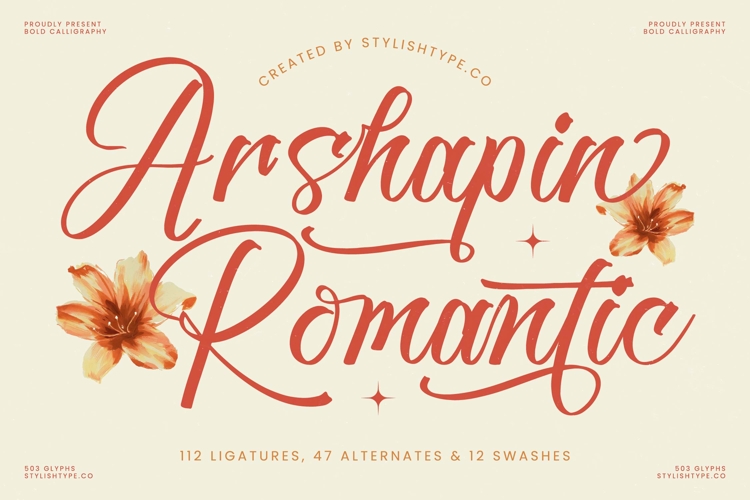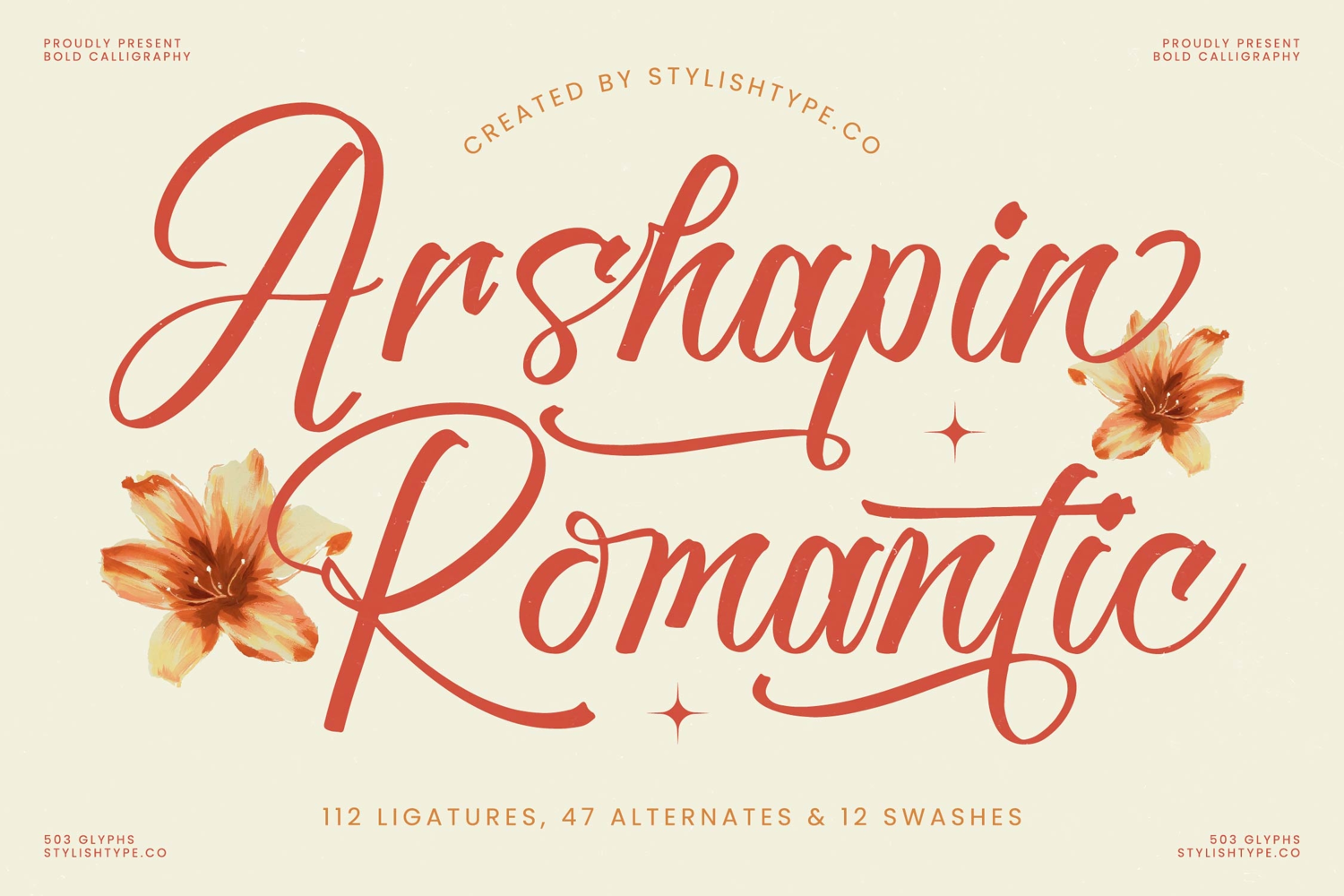
Arshapin Romantic - Bold Calligraphy Font
Unleash an aura of exquisite elegance and bold sophistication with Font Arshapin Romantic - Bold Calligraphy Font Script. This captivating typeface masterfully blends the classic artistry of bold calligraphy with a distinctly romantic flair, ensuring your designs leave an unforgettable impression. Its fluid, expressive strokes and high-contrast lines create a stunning visual rhythm, perfect for conveying a sense of luxury and refined beauty across any medium. Elevate your project with this font's inherent charm and powerful presence.
Discover the immense design value embedded within Font Arshapin Romantic - Bold Calligraphy Font Script. Beyond its aesthetic appeal, this font boasts a rich feature set, including numerous ligatures, alternates, and swashes, offering unparalleled creative flexibility. These intricate details allow for truly customized text arrangements, ensuring your typography feels unique and handcrafted. It’s engineered to provide both consistency and artistic freedom, making it an indispensable tool for designers seeking to add a touch of handcrafted artistry.